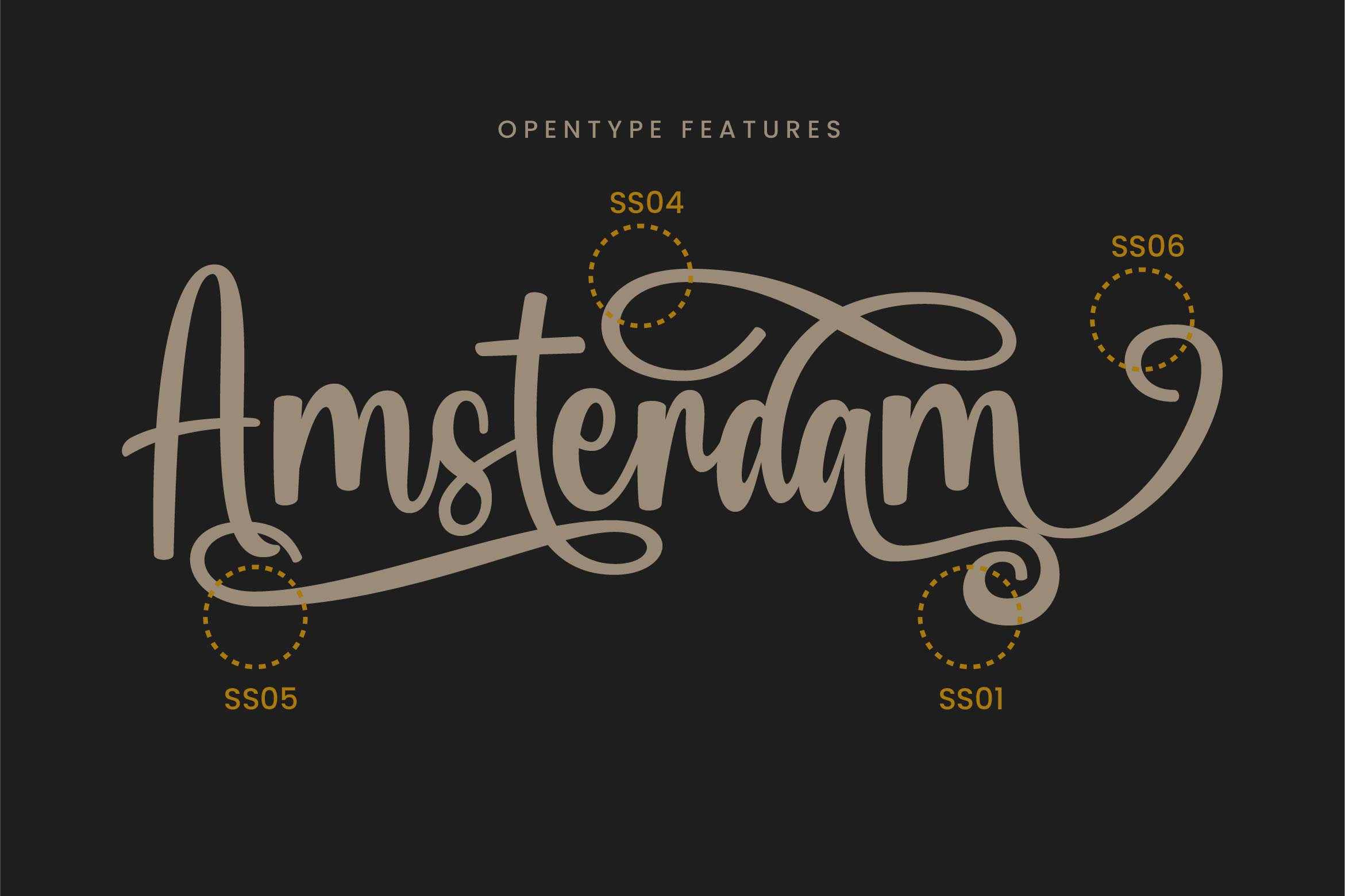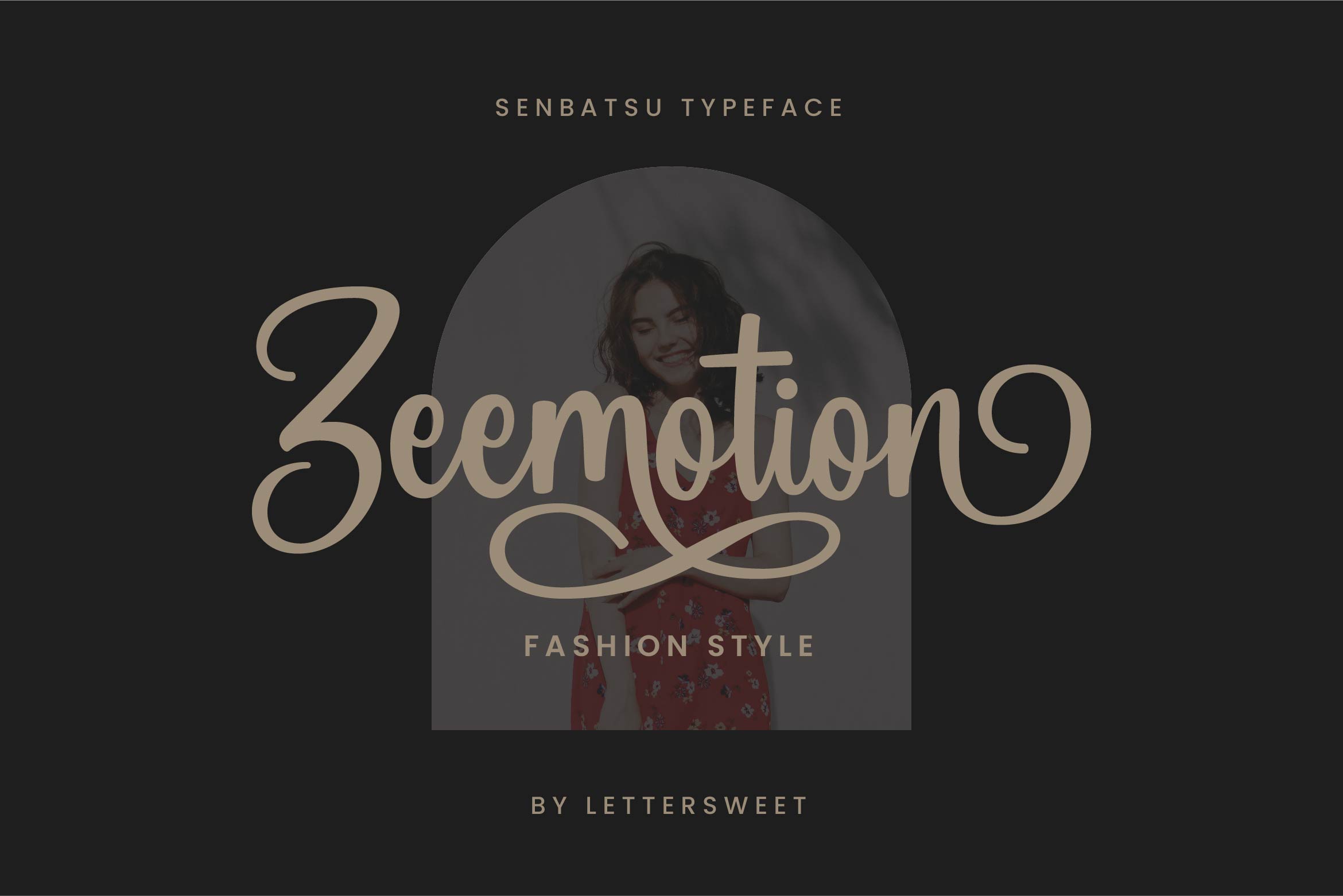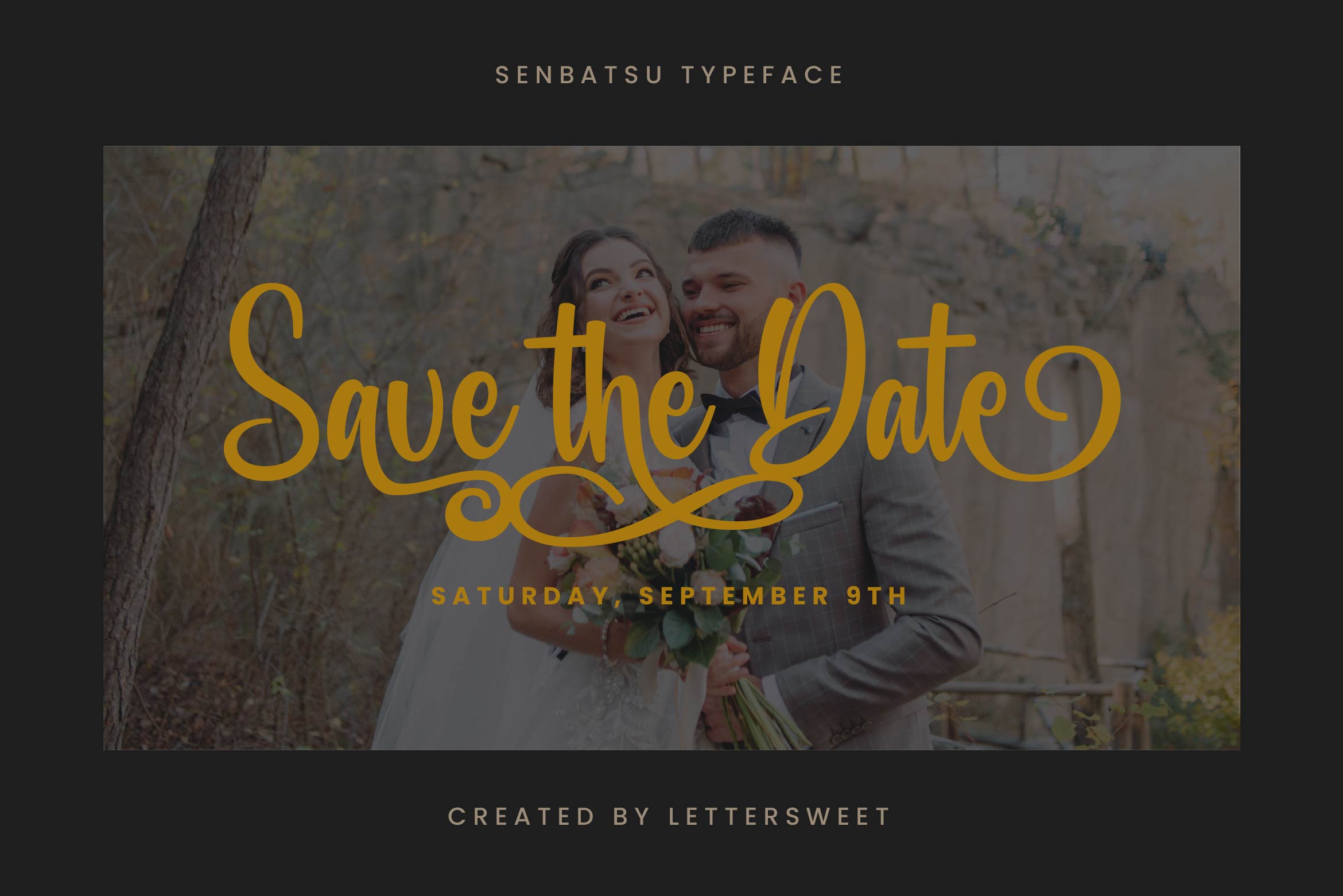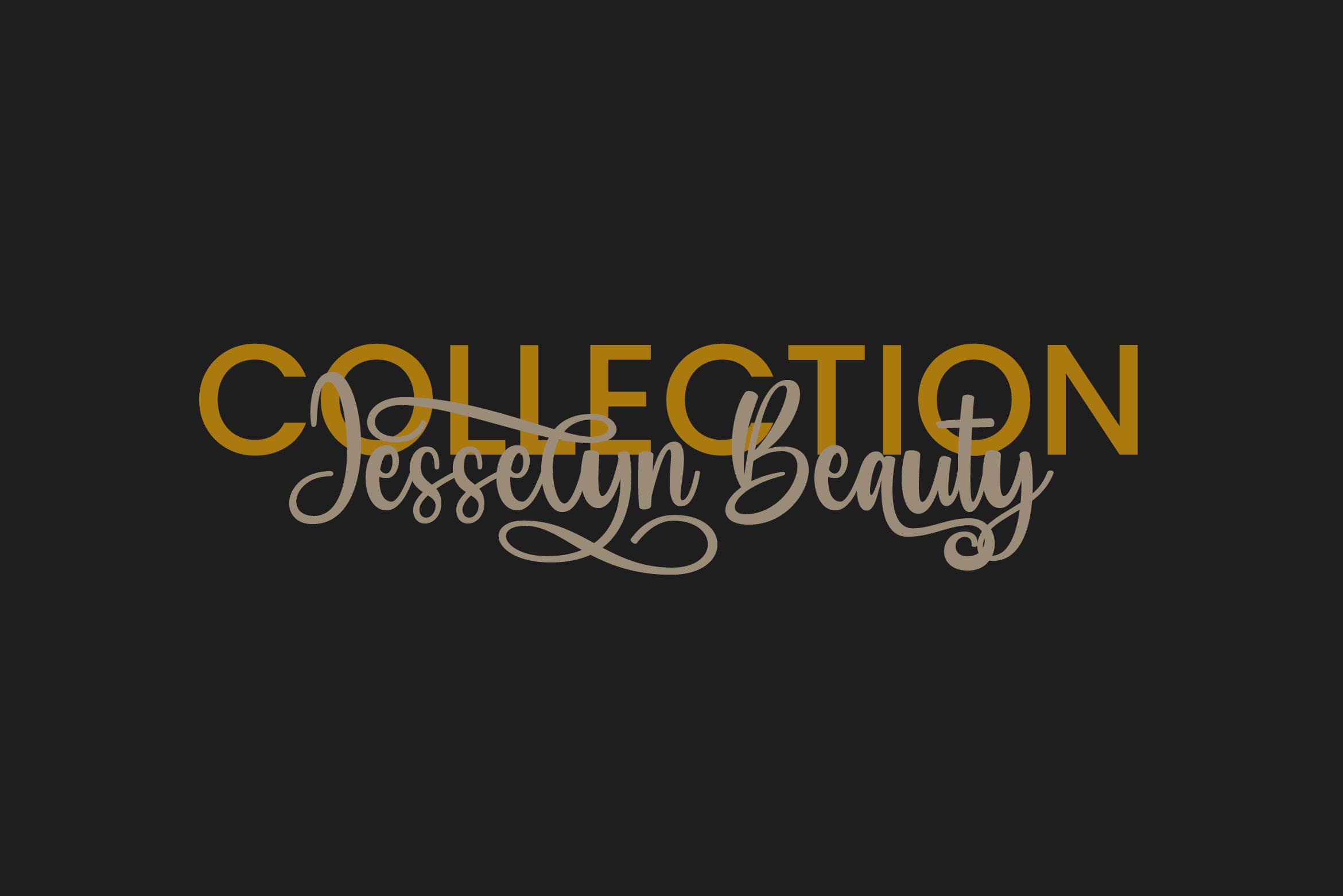
Senbatsu Font
Senbatsu Script Font
This is a beautiful and romantic script font. It looks stunning on wedding invitations, thank you cards, quotes, greeting cards, logos, business cards and every other design which needs a lovely handwritten touch. This font is PUA encoded which means you can access all of the glyphs and swashes with ease!